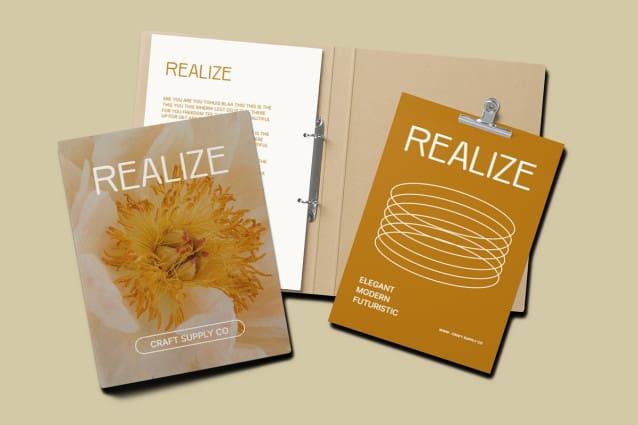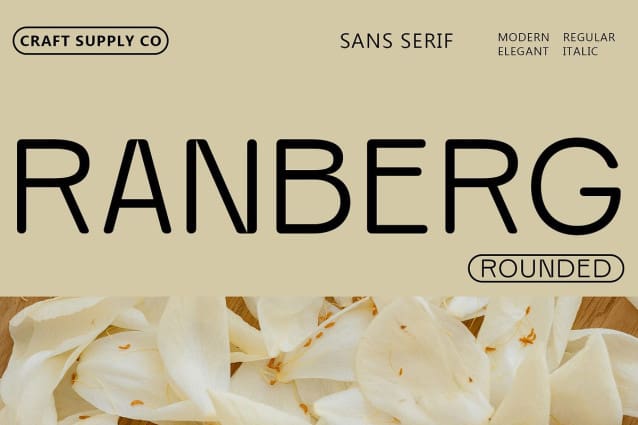
Ranberg Rounded Font
Ranberg Rounded Font: Embracing Minimalism and Modernity. Sleek Sans Serif Design Ranberg Rounded features a sleek sans serif design characterized by low contrast and rounded strokes. Its minimalist appearance exudes a contemporary vibe, perfect for various design applications.
Minimalist Aesthetics With its low-contrast letterforms and minimalist structure, This font embodies simplicity and sophistication. Each character is crafted with precision, offering a clean and modern aesthetic that appeals to a wide audience.
Contemporary Vibes with Rounded Strokes The font’s rounded strokes infuse a sense of warmth and approachability, enhancing its contemporary appeal. This font strikes a balance between modernity and friendliness, making it suitable for a range of design projects.
Versatile Usage in Modern Design From branding and editorial layouts to digital interfaces, This font adapts seamlessly to various design contexts. Its minimalistic yet modern style ensures legibility and visual appeal across different mediums.
Embracing Modern Minimalism This font offers a sleek and contemporary take on sans serif typography. With its low-contrast design, minimalist aesthetics, and rounded strokes, it caters to the demands of modern design while maintaining a sense of simplicity and elegance. Explore the versatility of Ranberg Rounded and elevate your projects with its refined appeal.